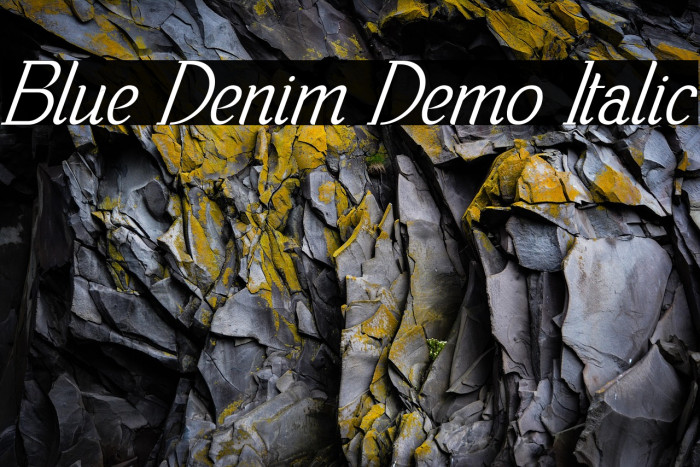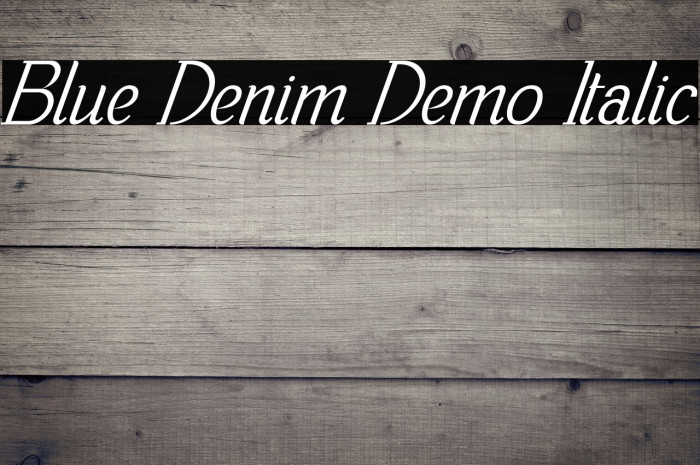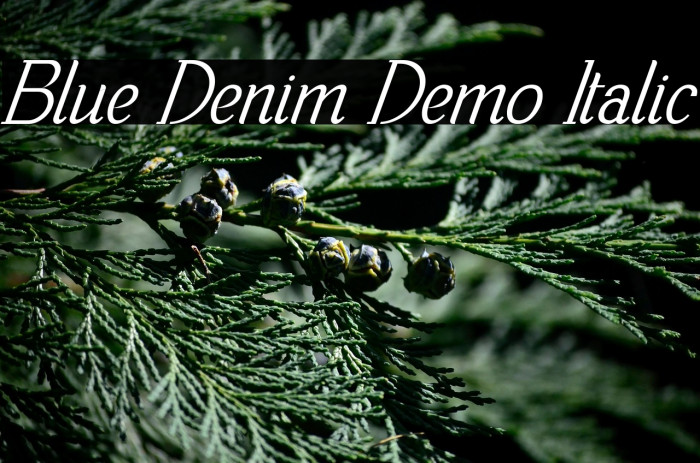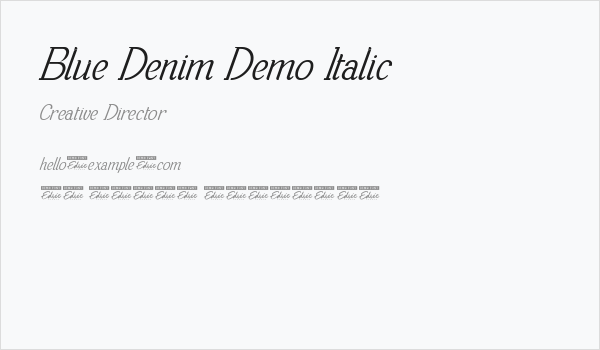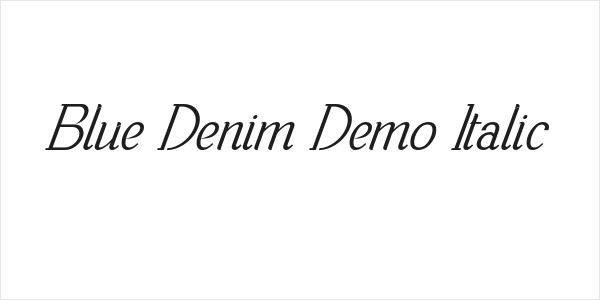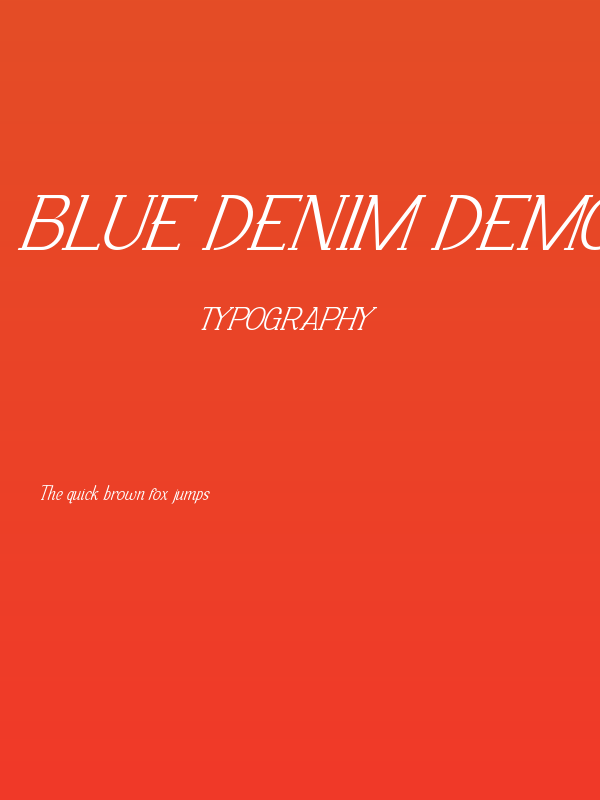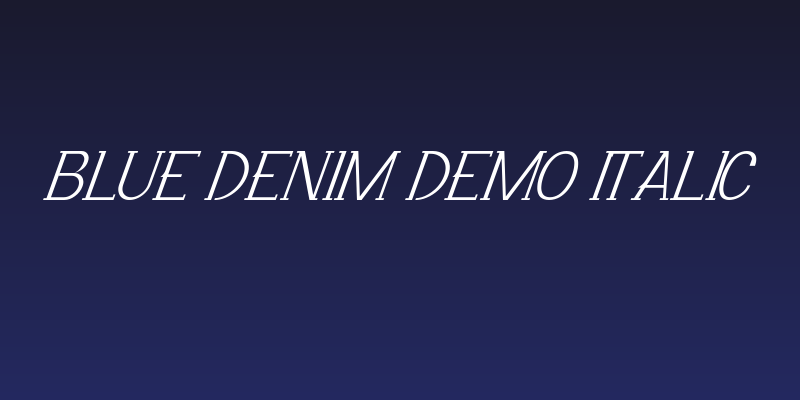
Blue Denim Demo Italic Font
Blue Denim Demo Italic Description
This font features an elegant and flowing italic style, characterized by its smooth curves and slightly elongated letterforms. The uppercase letters maintain a consistent height, while the lowercase letters exhibit a graceful slant, enhancing the overall fluidity of the text. The font's design is both sophisticated and approachable, making it suitable for a variety of applications. Its italic nature adds a touch of dynamism and movement, while the moderate contrast in stroke thickness ensures readability. The spacing between characters is balanced, allowing for a harmonious appearance in both large and small text sizes.